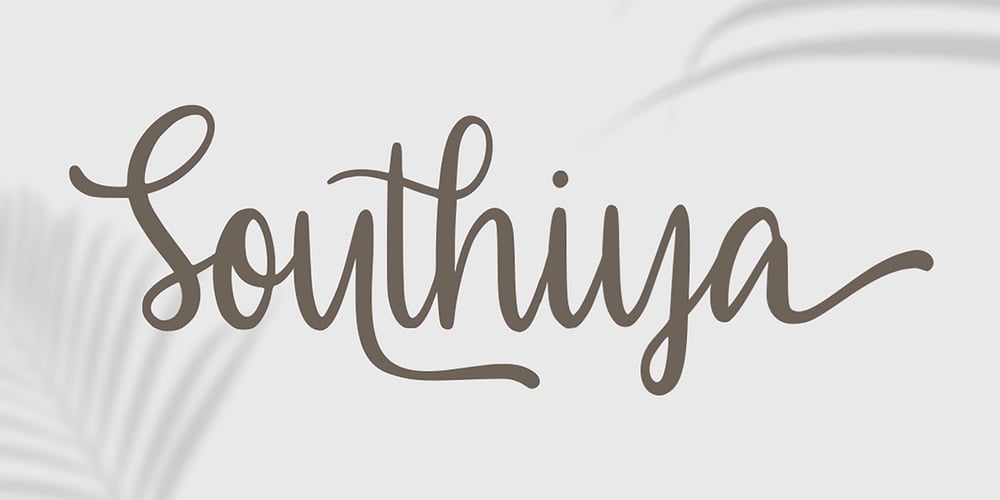
Southiya Font Family was designed by Virgiawan Listanto and published by Stringlabs Creative Studio. Southiya contains 1 styles and family package options. Southiya is an equally elegant and authentic script, full of love. Use it to add a romantic spark to any design project! The Southiya font is a great choice to increase the prominence in your project. Although the typography is traditional, the basic elements are great.